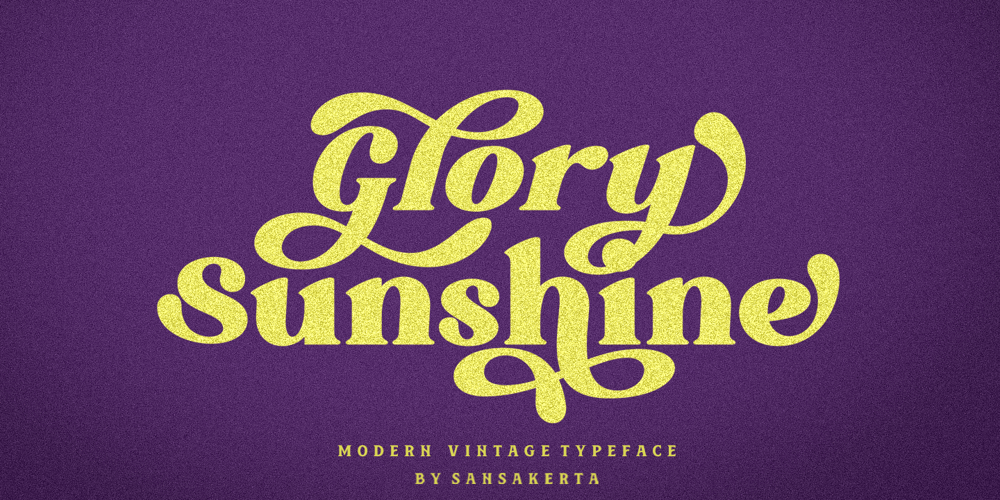
Glory Sunshine Font Family was designed by Dean Nugraha and published by Sansakerta. Glory Sunshine contains 1 styles and family package options. Glory Sunshine is a bold with vintage modern styles. A font that has stylistics and ligatures that will make your project stand out.This font consists of uppercase, lowercase, numbers, punctuation and is supported by multilingual symbols.Fall in love with its incredibly versatile style and use it to create gorgeous wedding invitations, beautiful stationary art, eye-catching social media posts, and much more!let’s immediately solidify your project with Glory Sunshine.OPENTYPE FEATURES Swash Standard Ligatures Discretionary Ligatures Stylistic Alternates Stylistic Set All Alternates Multilingual character